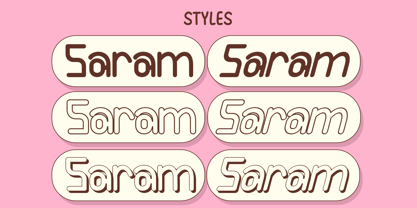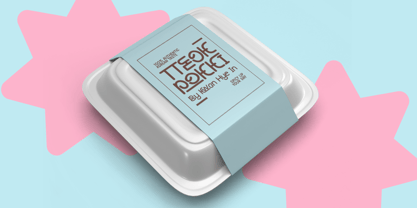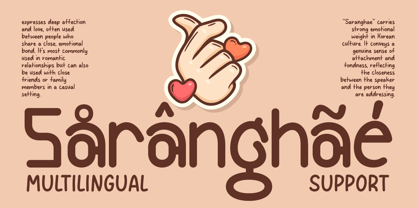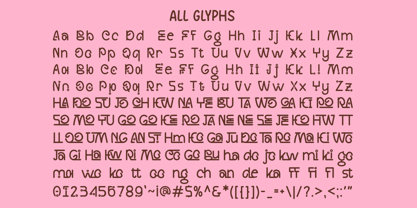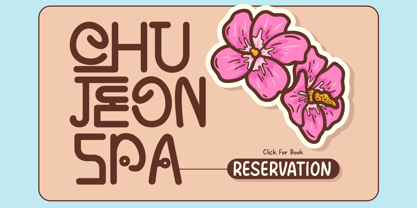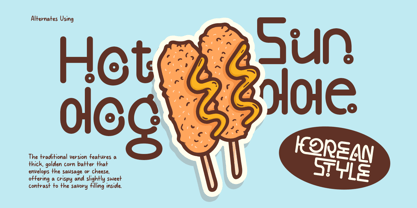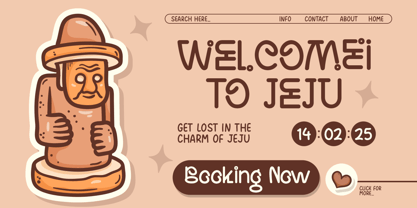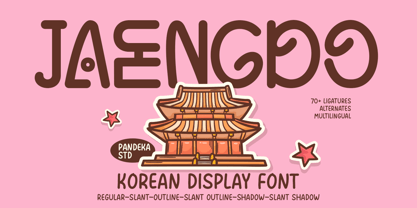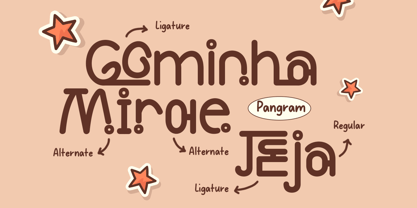
Jaengdo
by Pandeka Studio
The Jaengdo Font Family was designed by Sagara Nararya and published by Pandeka Studio. Jaengdo contains 6 styles and family package options.
Jaengdo - A versatile Korean display typeface that blends bold lettering with traditional aesthetics and modern typography. With 6 unique styles (Outline, Outline Slant, Regular, Shadow, Shadow Slant, Slant), Jaengdo is perfect for cultural designs, branding, logos, posters, and projects that demand a unique and stylish touch.
• 6 Styles: Outline, Outline Slant, Regular, Shadow, Shadow Slant, Slant
• Full Character Set: uppercase, lowercase, numbers, symbols, punctuation and ligature
• 70+ Ligatures and alternates
Whether for traditional or contemporary themes, Jaengdo brings timeless beauty and cultural charm to your work.